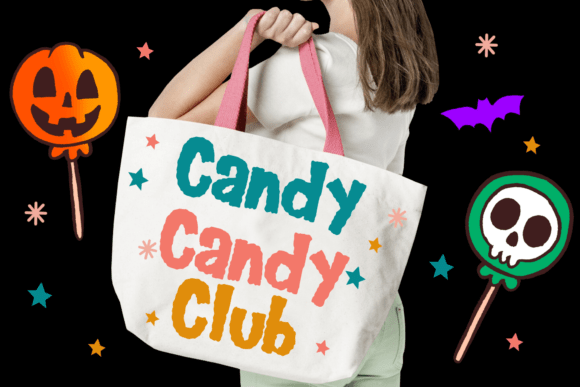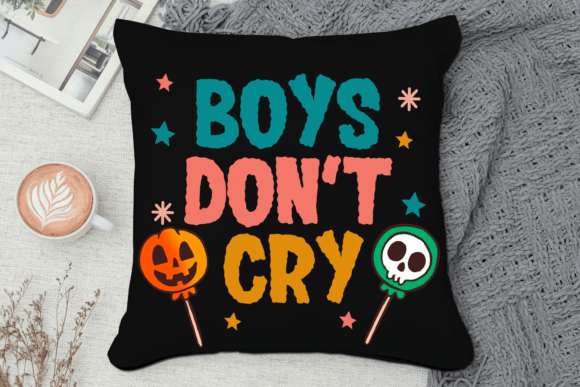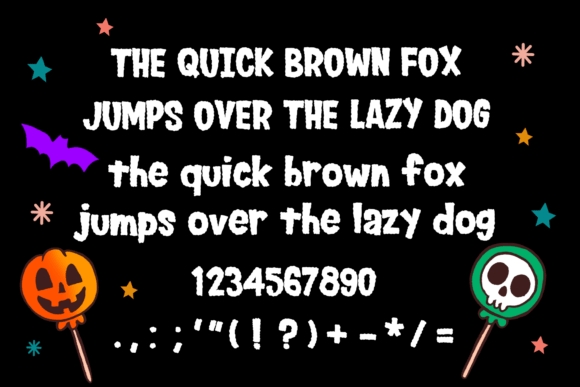
Introducing Halloween Candy Font: The Perfect Playful and Spooky Headline Font
Are you looking for a font that captures the essence of Halloween with a playful and spooky twist? Look no further than the Halloween Candy Font. This delightful font is designed to bring a friendly “trick-or-treat” vibe to your designs, making it perfect for posters, party invites, stickers, packaging, thumbnails, and signage.
What Makes Halloween Candy Font So Unique?
Halloween Candy Font is a playful, spooky headline font that features chunky, soft-edged shapes and irregular contours, giving it a unique texture that feels like a thick marker on textured paper. The bouncy baseline and tight, rounded counters add to its friendly and approachable feel, making it more cute than creepy. The rough outline adds a handmade energy to the font, making it perfect for designs that require a personal touch.
Key Features of Halloween Candy Font
- Chunky, soft-edged shapes: The font features chunky, soft-edged shapes that give it a unique texture and make it perfect for large use.
- Irregular contours: The irregular contours of the font add to its handmade energy and make it feel like a thick marker on textured paper.
- Bouncy baseline: The bouncy baseline of the font gives it a friendly and approachable feel, making it perfect for designs that require a playful touch.
- Tight, rounded counters: The tight, rounded counters of the font add to its cute and playful feel, making it perfect for designs that require a friendly vibe.
- Rough outline: The rough outline of the font adds a handmade energy to the design, making it perfect for designs that require a personal touch.
Best Use Cases for Halloween Candy Font
Halloween Candy Font is built for large use, making it perfect for:
- Posters: Create eye-catching posters for Halloween parties, events, or promotions.
- Party invites: Design spooky and playful party invites that will set the tone for your Halloween celebration.
- Stickers: Create stickers that are perfect for Halloween treats, favors, or decorations.
- Packaging: Use Halloween Candy Font to create spooky and playful packaging for Halloween treats or products.
- Thumbnails: Create eye-catching thumbnails for Halloween-themed videos or blog posts.
- Signage: Use Halloween Candy Font to create spooky and playful signage for Halloween events or promotions.
Tips for Using Halloween Candy Font
To get the most out of Halloween Candy Font, here are some tips:
- Use bold color fills: Pair Halloween Candy Font with bold color fills to create a vibrant and eye-catching design.
- Add drop shadows: Add drop shadows to give your design depth and dimension.
- Pair with a clean sans: Pair Halloween Candy Font with a clean, rounded, or geometric sans for supporting text to create a nice contrast.
- Keep tracking loose: Keep tracking slightly loose to let the texture breathe and maximize legibility.
Halloween Candy Font is a playful, spooky headline font that is perfect for designers and crafters looking to add a friendly “trick-or-treat” vibe to their designs. With its chunky, soft-edged shapes, irregular contours, bouncy baseline, and tight, rounded counters, this font is sure to bring a smile to your audience’s face. Whether you’re designing posters, party invites, stickers, packaging, thumbnails, or signage, Halloween Candy Font is the perfect choice.